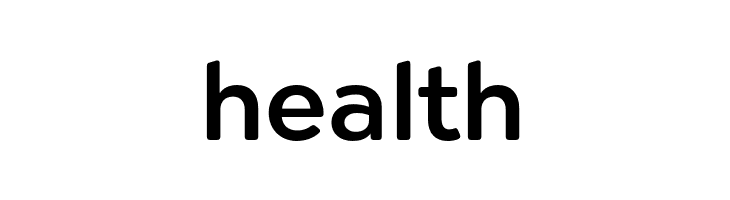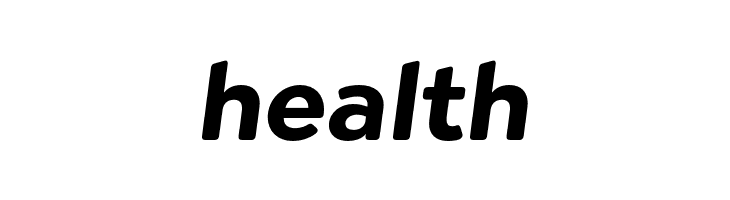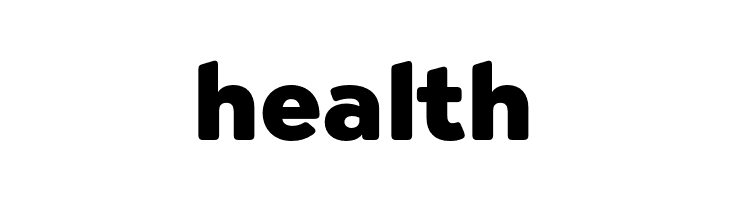
A playful, bold script font with a handwritten, cursive style.
A bold, modern sans-serif font with clean lines and uniform strokes.
A modern, bold sans-serif font with geometric influences and consistent stroke width.
A dynamic, cursive script font with bold, expressive characters.
A bold, modern sans-serif font with strong, uniform strokes.
A modern, clean sans-serif font with balanced proportions and consistent stroke width.
A bold, modern sans-serif font with clean lines and strong readability.
A clean, modern sans-serif font with geometric shapes and uniform stroke width.
A modern, light sans-serif font with clean lines and balanced proportions.
A bold, decorative font with a vintage flair and high contrast strokes.
A bold, decorative font with a vintage, hand-drawn aesthetic.
A flowing, cursive font with elegant loops and swashes, perfect for artistic projects.
A bold, expressive handwritten font with dynamic strokes.
A modern, geometric font with a sleek and compact design.
A playful, textured font with a hand-drawn, sketched appearance.
A modern, geometric sans-serif font with clean lines and balanced spacing.
A playful, cartoonish font with bold outlines and whimsical, fluffy accents.
A vintage, monospaced typewriter-style font with a textured, distressed look.
A bold, abstract font with sweeping curves and circular motifs, ideal for artistic projects.
A bold, circular font with enclosed characters, offering a playful and retro vibe.
A bold, rounded font with characters enclosed in thick circular outlines.
A bold, dripping script font with a horror or grunge aesthetic.
A bold, textured font with a rugged, distressed appearance.
A flowing, cursive font with elegant loops and smooth transitions.
A bold, hand-painted font with a rough, textured style.
An elegant cursive font with flowing, sophisticated strokes.
A playful, hand-drawn outlined font with a bold and whimsical style.
A playful, bold outline font with a hand-drawn, cartoonish style.
Casual handwritten sans-serif with rounded, playful forms.
A bold, decorative font with intricate marijuana leaf patterns.